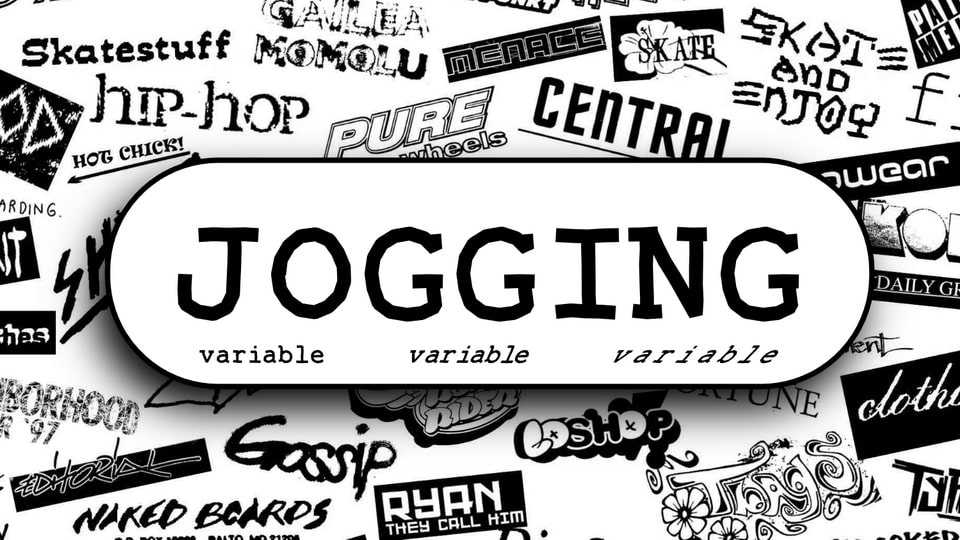
Download GO Jogging font, a funky and weird variable typeface inspired by skate culture. Griptype is an attempt to bring the ease and serenity of this culture to the world of typography.